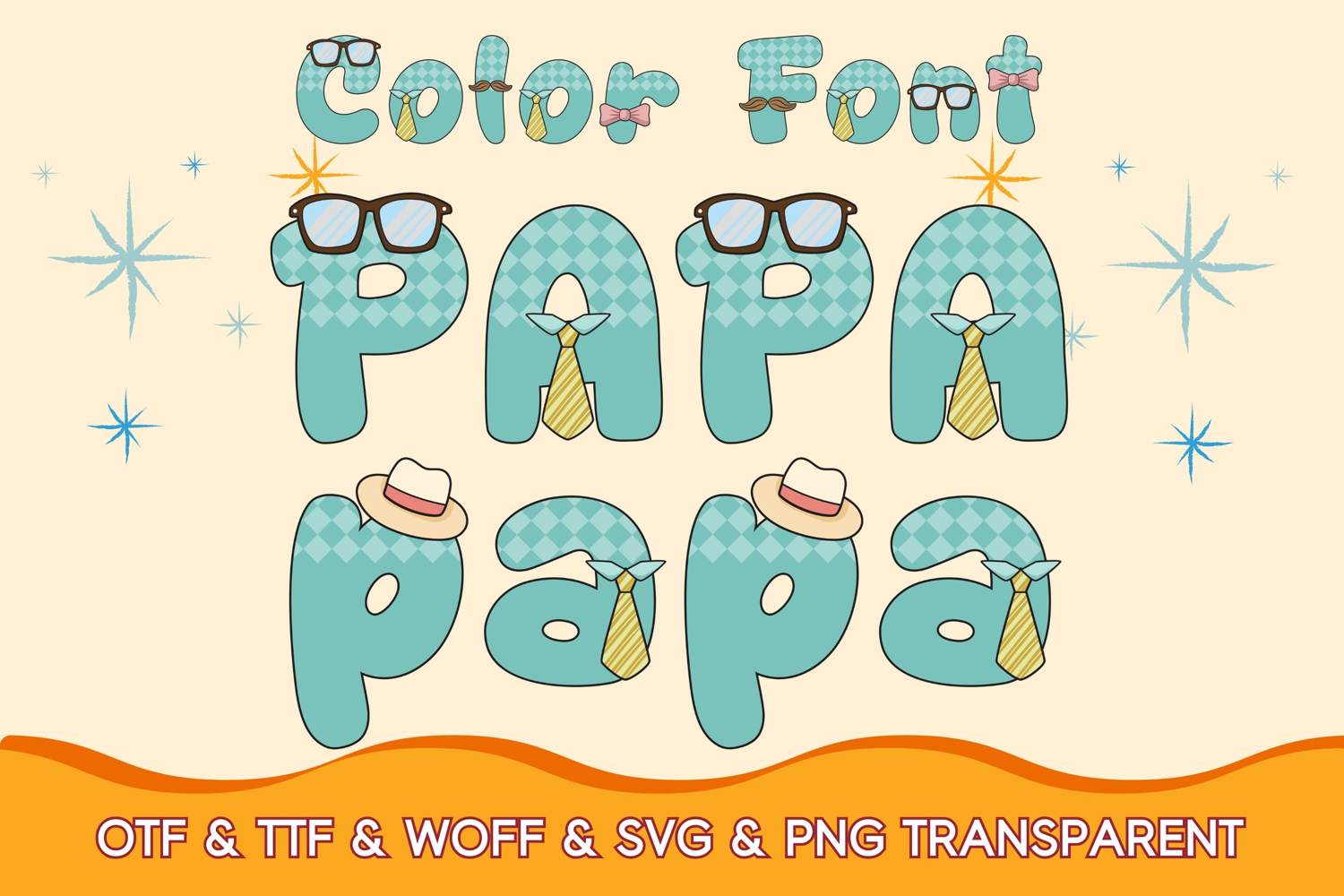
Papa Papa font is a cool and original-looking color font. Whether you’re using it for crafts, digital design, presentations, or making greeting cards, this font has the potential to become your favorite go-to font, no matter the occasion!
PapaPapa